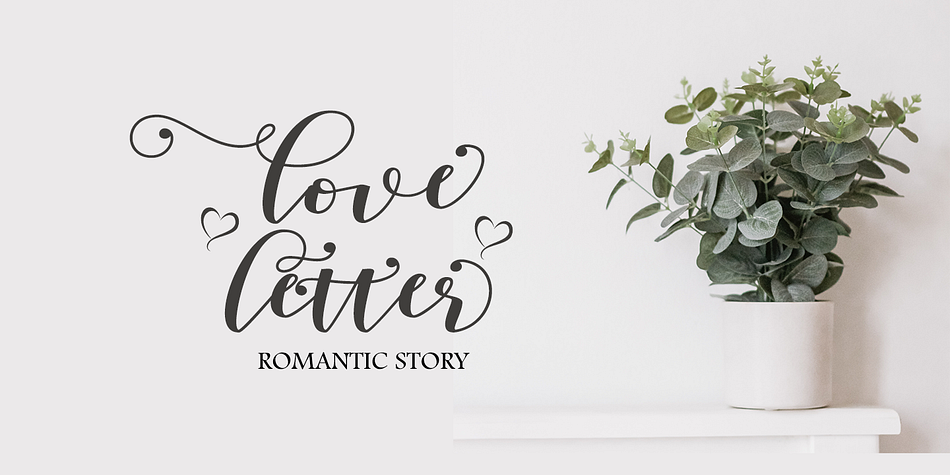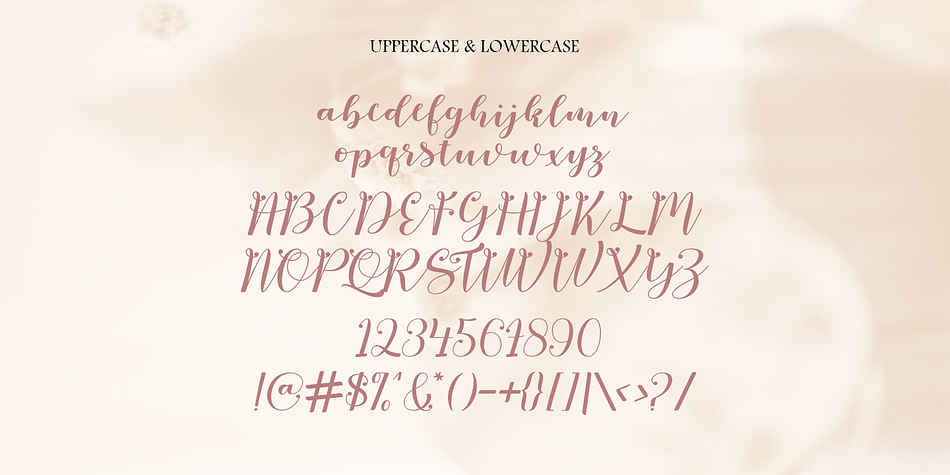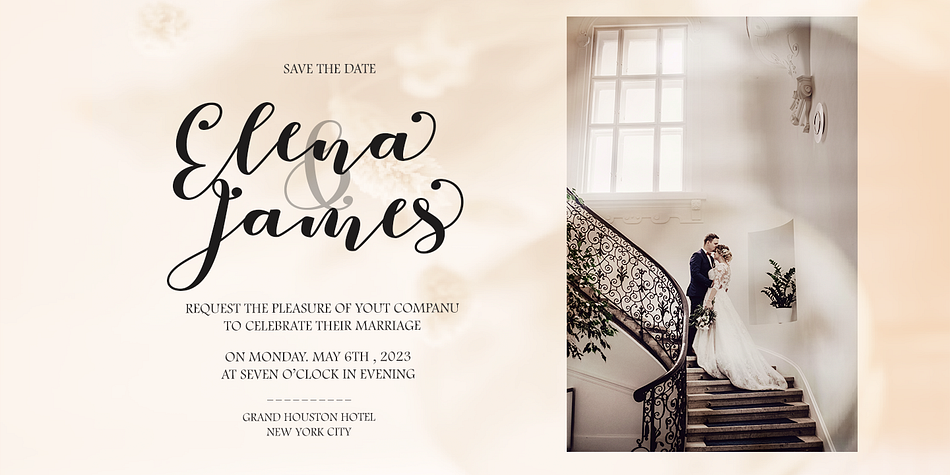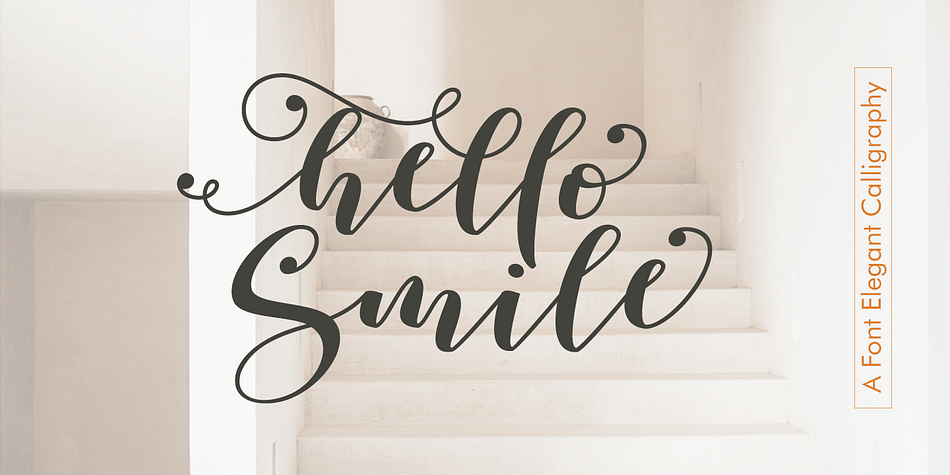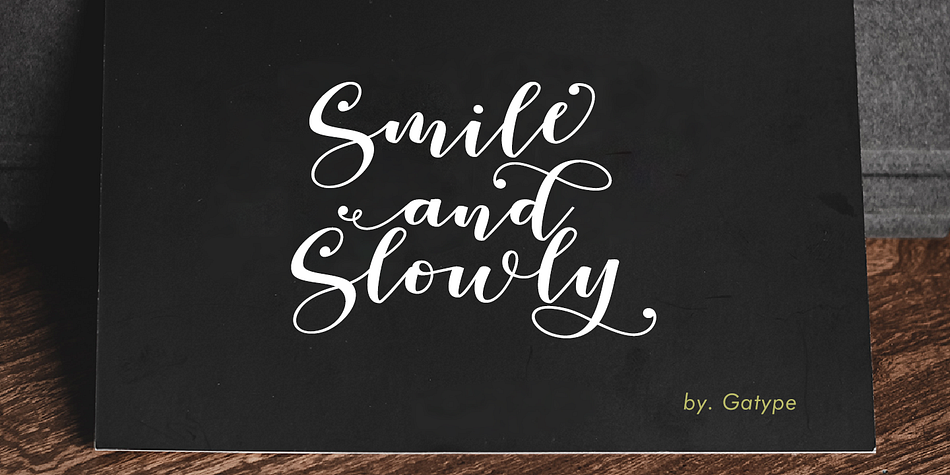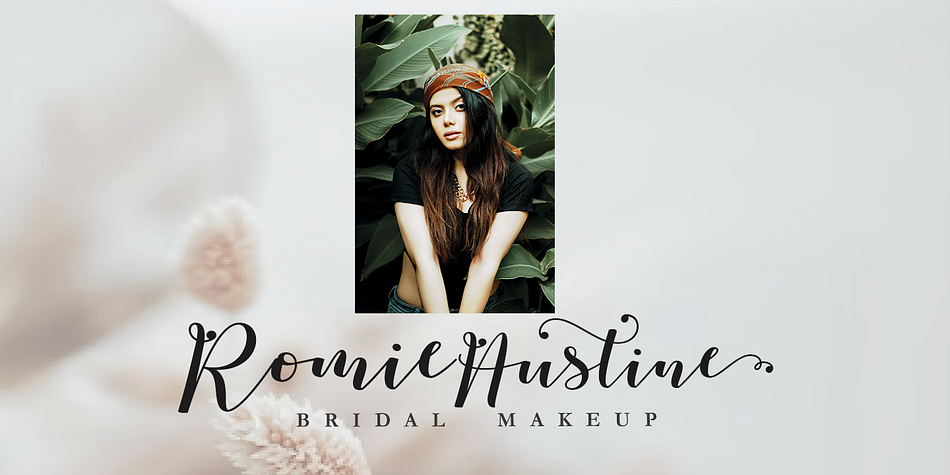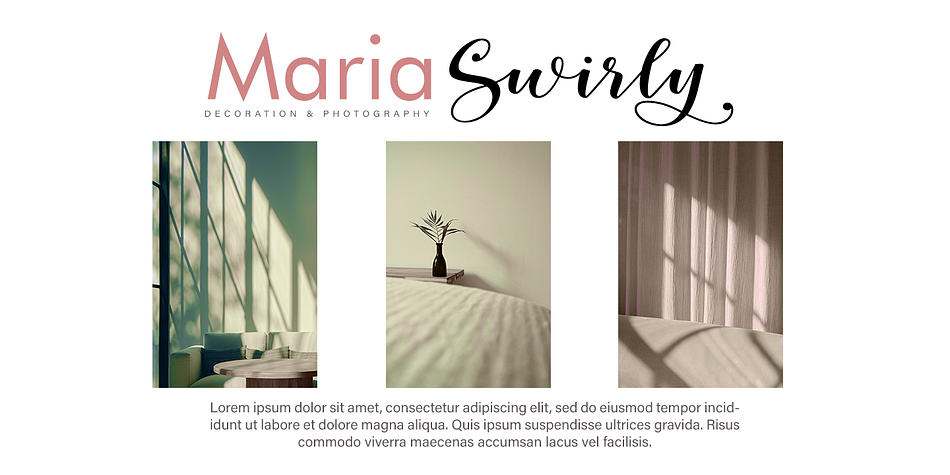
Hello Smile
Hello Smile is a modern calligraphy font family published by Gatype.
You can get the latest Hello Smile original handwritten simple font model now! With an updated hand calligraphy model with special glyphs that have been given a combination of fantasy and handwritten ink. This font will look beautiful on any design, Wedding designs, branding materials, blog titles, quotes and invitations, business cards.